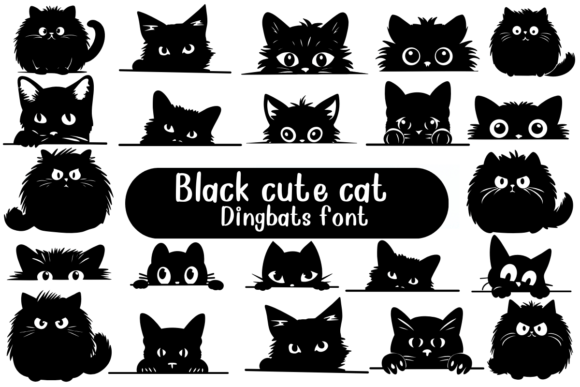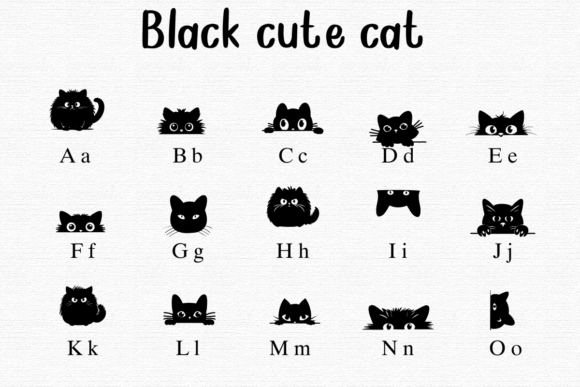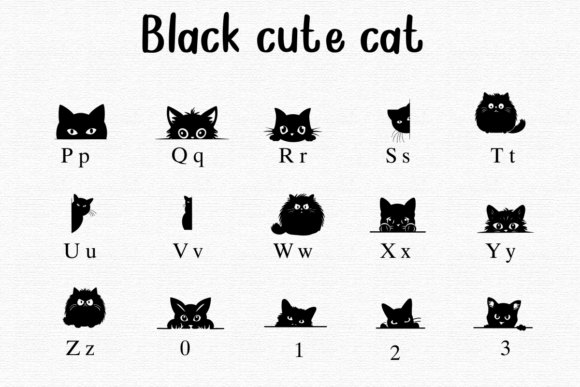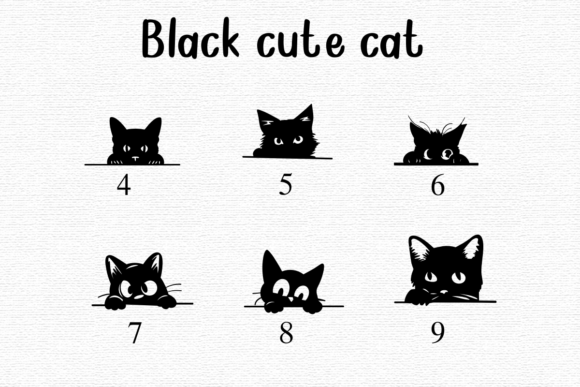
Black Cute Cat Font
“Black Cute Cat” is a playful dingbat font featuring an adorable black cat peeking out. Each symbol in the font shows this cute cat in different poses, perfect for adding a touch of charm to your designs.